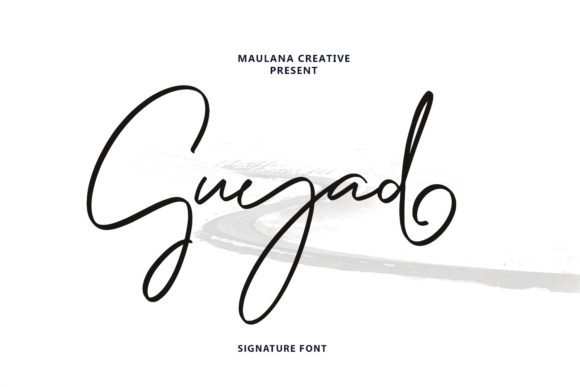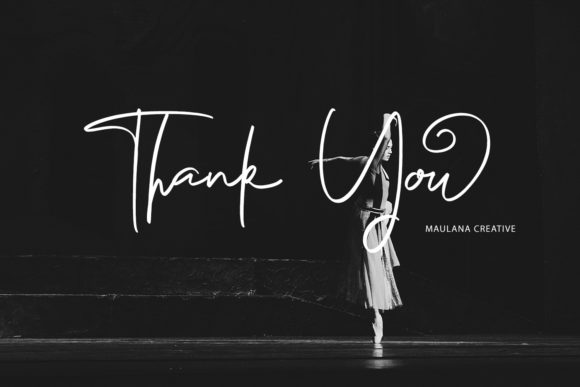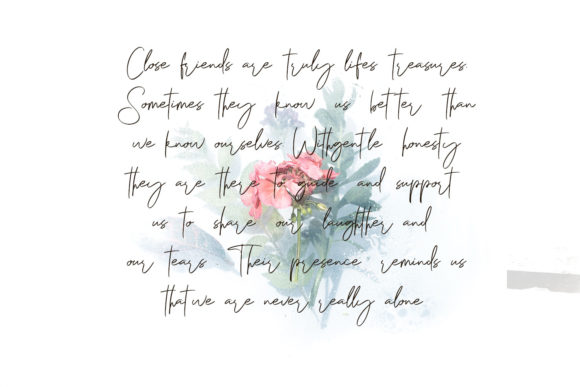
About Guyad Font
Guyad is a casual script font. This font is perfect for logo design, social media, movie titles, books titles, wedding invitations, cards, and more.